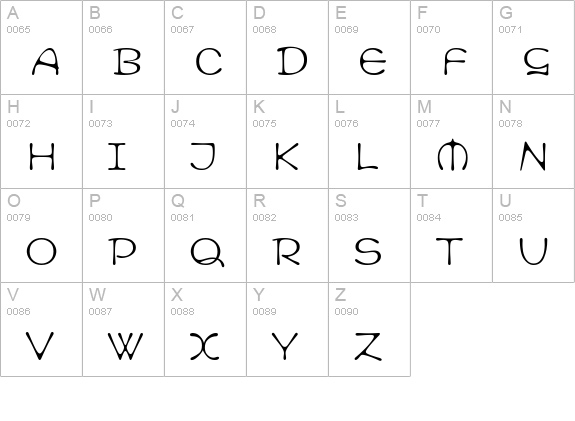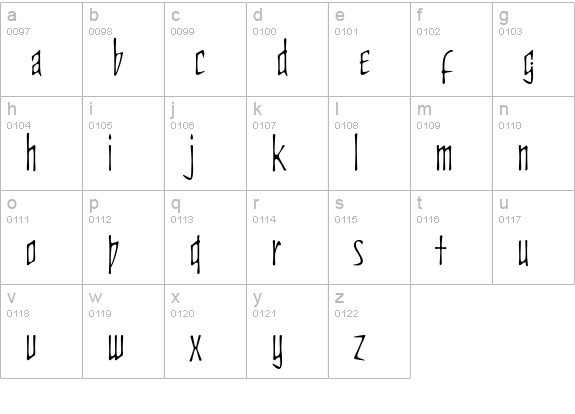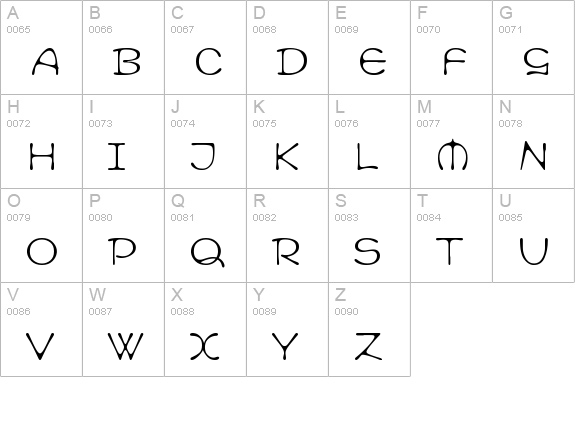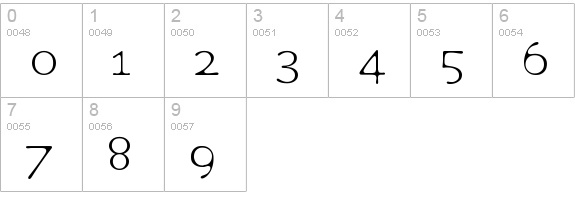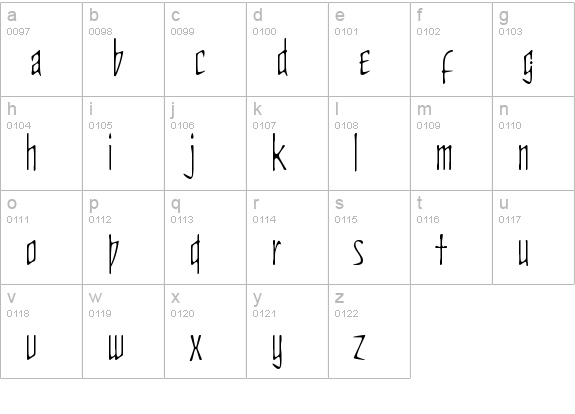
CultPlain Font Details
Introducing CultPlain font, a sleek and modern typeface that exudes sophistication and versatility. With its clean lines and contemporary aesthetic, CultPlain is perfect for a wide range of design projects, from branding to editorial layouts. The sleek design of CultPlain makes it a standout choice for those looking to add a touch of elegance to their work. The best part? CultPlain is completely free to download at FontsMarket.com. This means you can elevate your projects with this stylish font without breaking the bank. Whether you're a designer looking to enhance your portfolio or a business owner seeking to elevate your brand, CultPlain is the perfect choice for adding a touch of sophistication to your work. Don't miss out on the opportunity to download CultPlain font for free and take your designs to the next level. Elevate your creative projects with this modern and stylish typeface that is sure to make a lasting impression.